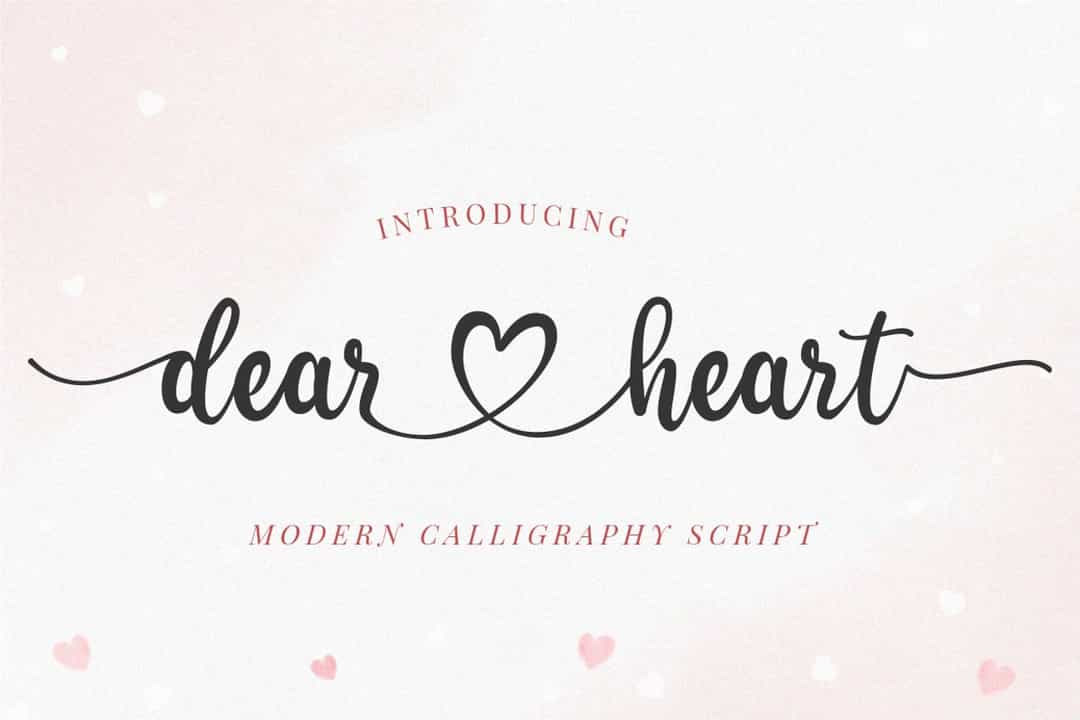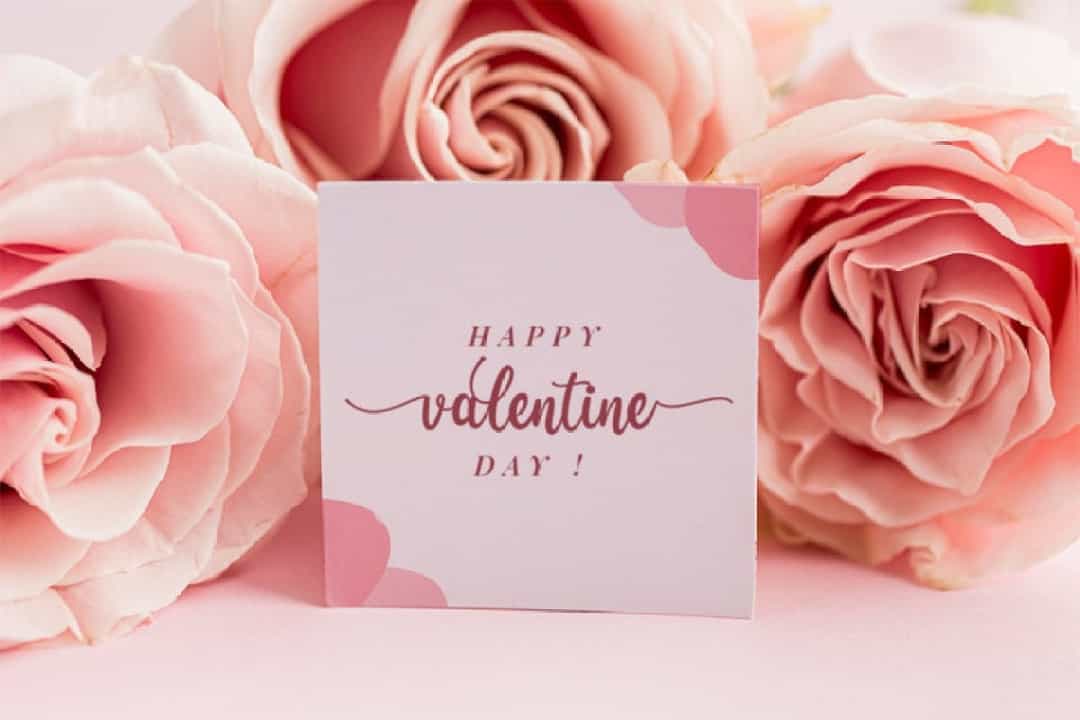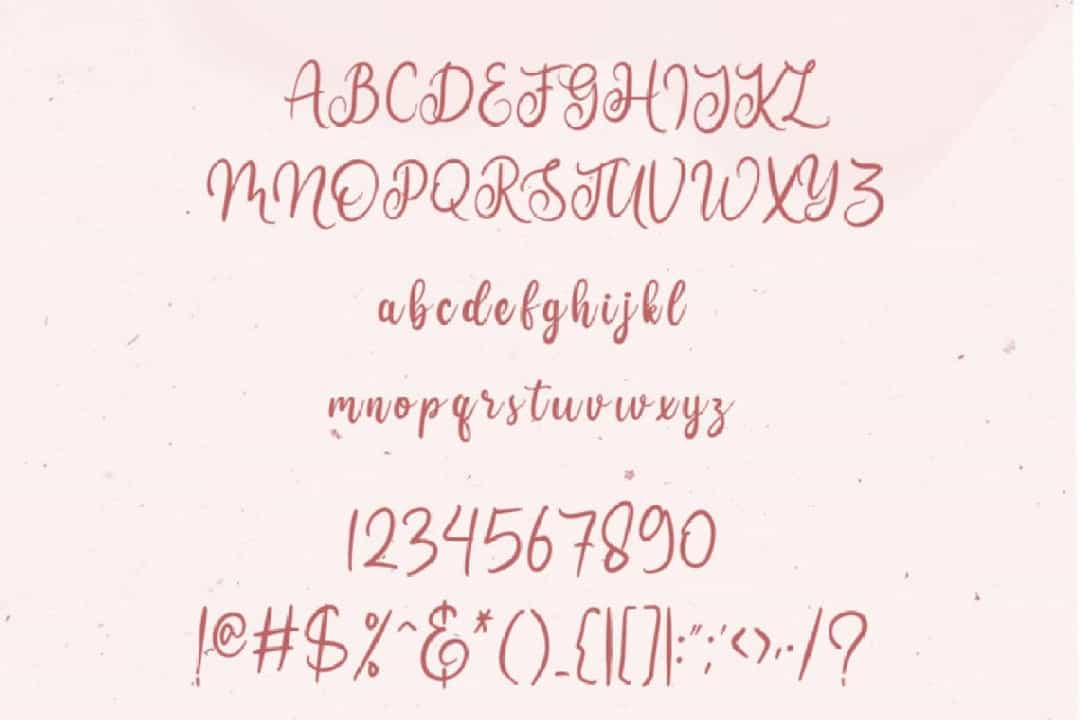
Discover Dear Heart Font, part of the Calligraphy collection—a versatile and unique font perfect for adding a personal touch to your projects. Download it for free and enjoy crafting designs with style, from invitations to social media posts. This font is available exclusively for personal use, giving you the freedom to create without limits. Unlock your creativity with Dear Heart Font today!
Dear Heart Font is a script calligraphy font ideal for posters, logos and signs! Perfect for wedding stationery logos social media posts quotes… just try out in the above box to see if it matches up perfectly with what you need for your next job!